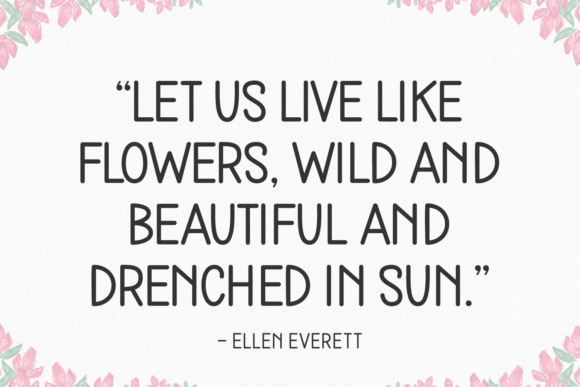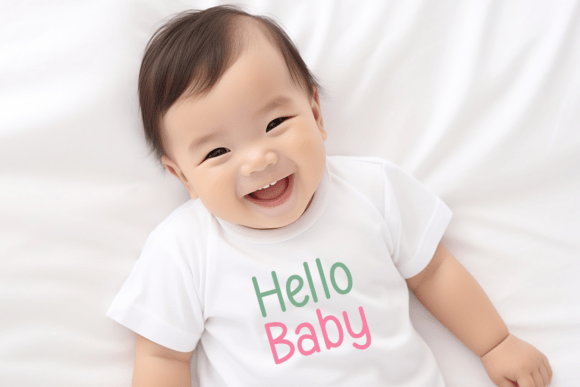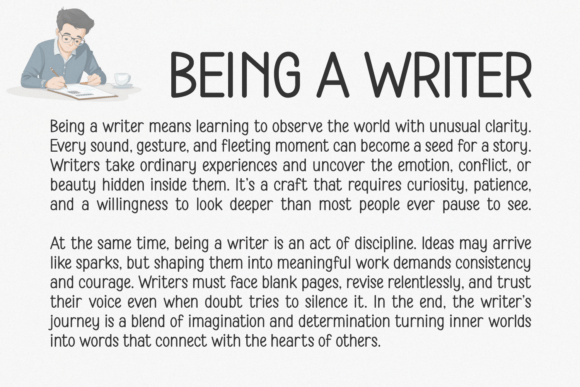
Introduction to Notes Writer Font Font
Fonts play a crucial role in design, and the Notes Writer Font font is a typeface that brings both character and versatility to any project. Whether you’re working on a branding project, a website, or a print design, the Notes Writer Font font offers a unique style that can elevate your work.
Notes Writer is a cute handwritten font.
This font will be a wonderful asset to your font library, as it has the potential to enhance any creation Itβs perfect for crafts, digital design, presentation, or writing wedding invitations, cards, or any other design that might need a fun touch.
Key Features of Notes Writer Font Font
Why Choose Notes Writer Font Font?
The Notes Writer Font font is more than just a typeface β it’s a design tool that helps you communicate your message with style and clarity. Its unique character set and versatile design make it suitable for a wide range of applications, from elegant invitations to bold headlines.
With its carefully crafted letterforms and balanced proportions, the Notes Writer Font font ensures readability and visual appeal across all mediums.
What makes Notes Writer Font font special?
The Notes Writer Font font stands out with its unique design, exceptional readability, and versatility across various design applications.